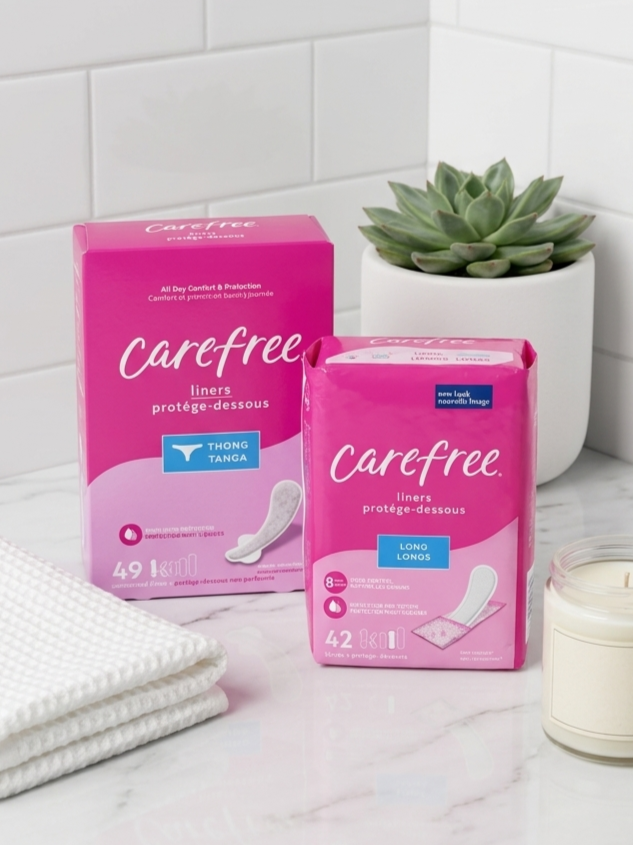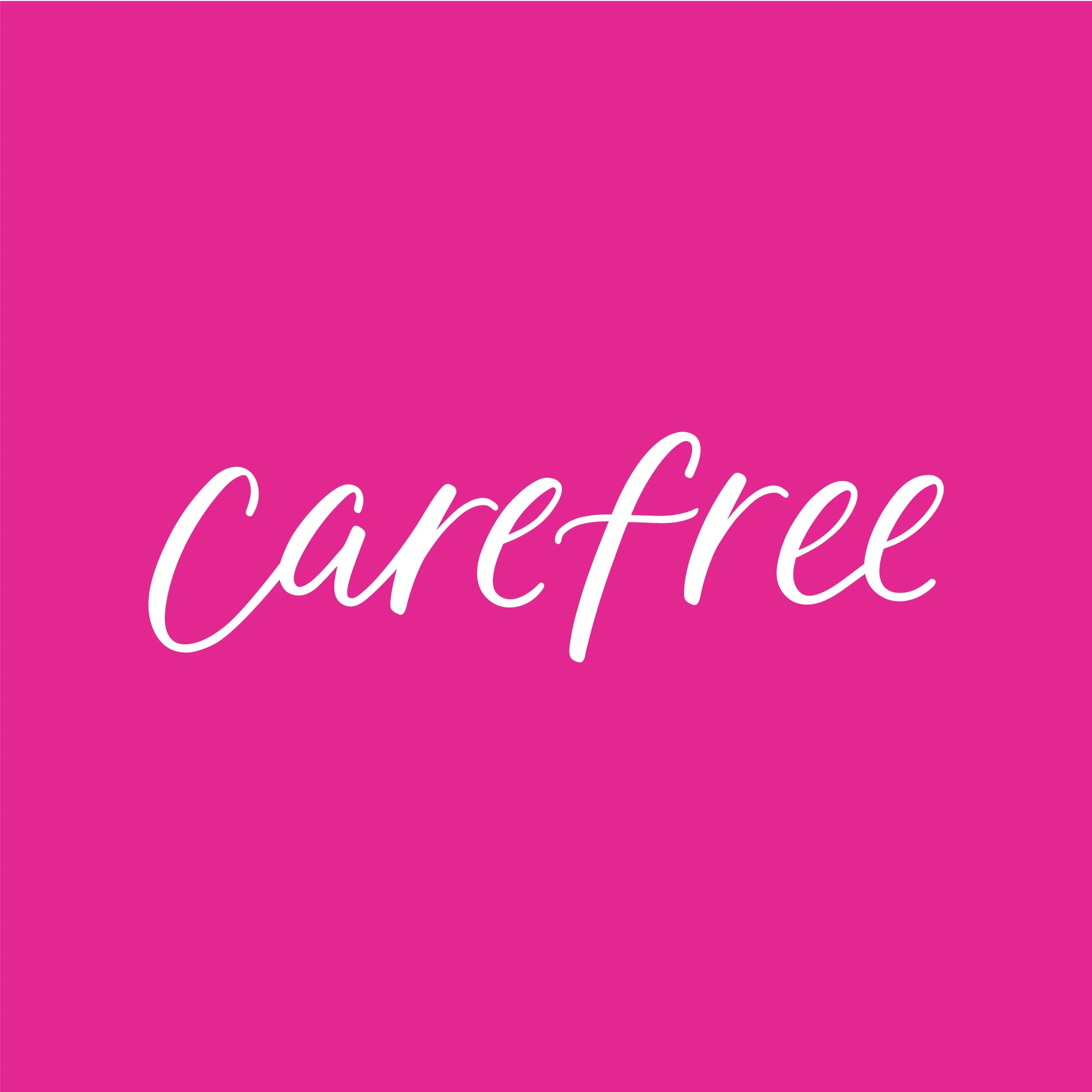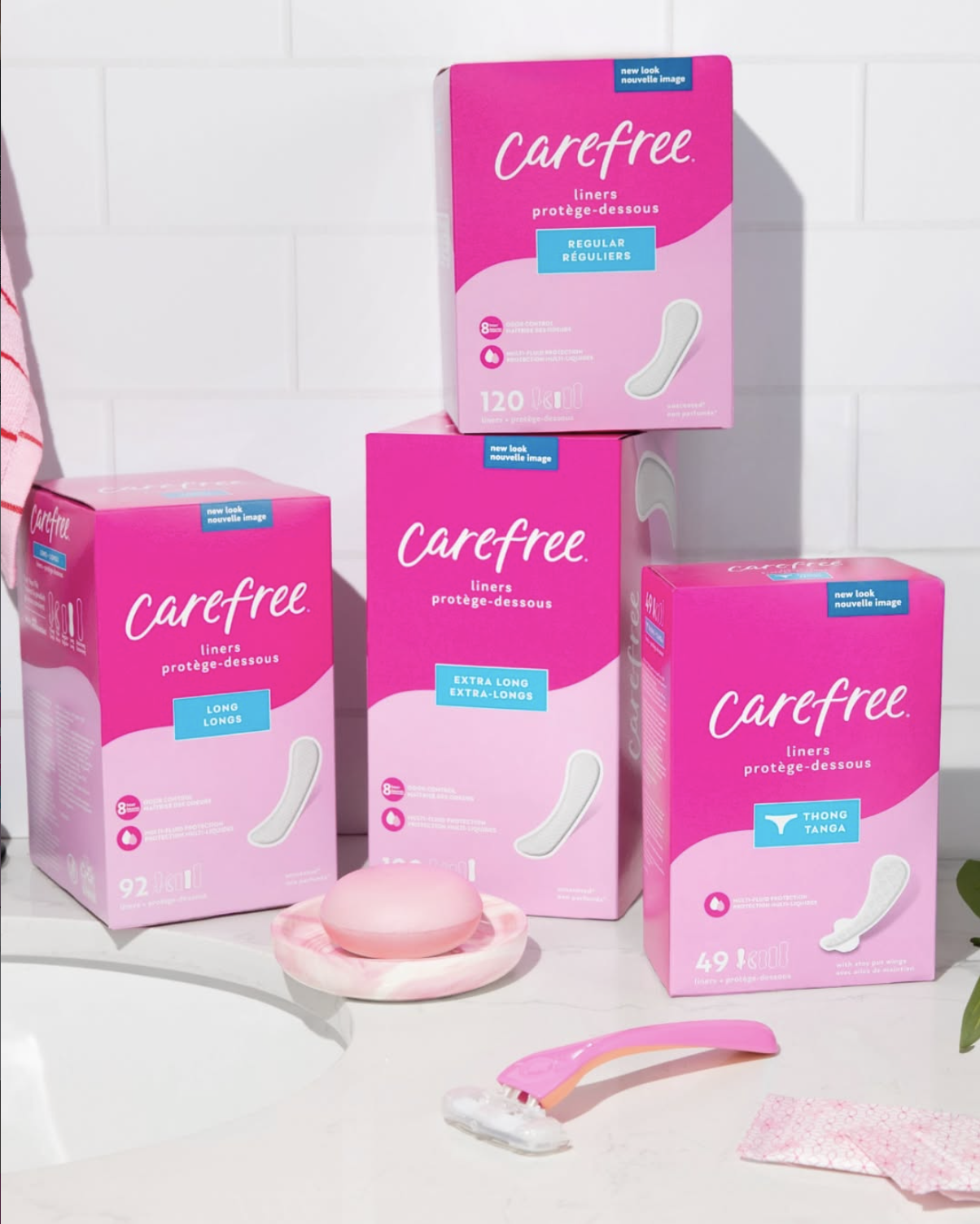
CAREFREE PANTY LINERS
Refreshing the logo for Carefree Panty Liners was all about making the brand feel more modern, relatable, and connected to everyday women. They wanted to move away from a dated font and bring in something hand lettered with a more personal, approachable feel. I explored a wide range of lettering styles and directions before landing on the final look — playful, confident, and easy to connect with. Seeing the finished lettering rolled out across all of their packaging has been especially exciting. Packaging design by Parlo - A Creative Collective.
Carefree logo refresh sketching process in Procreate